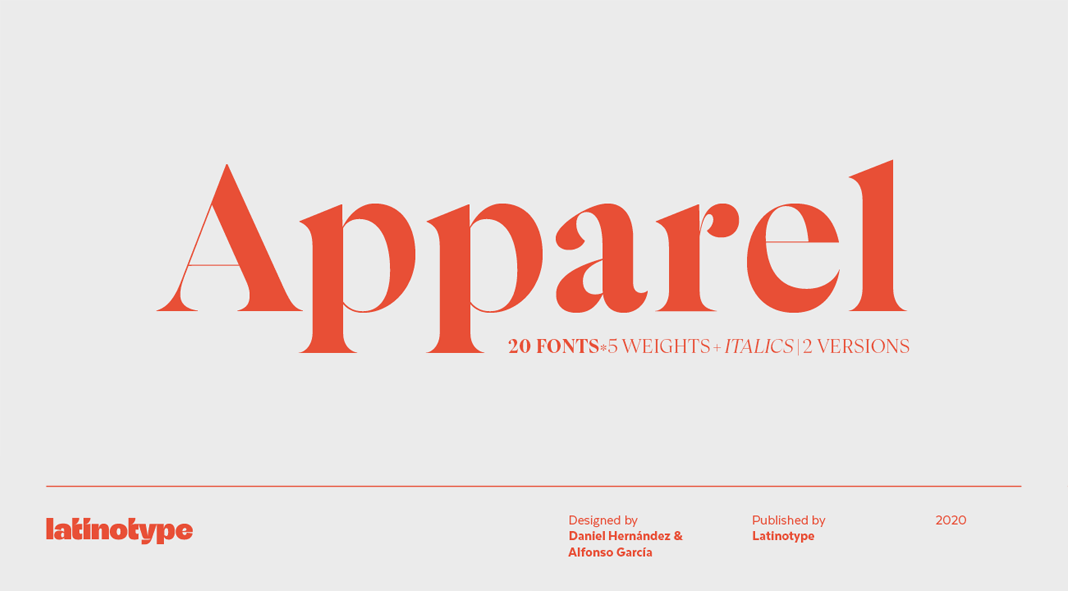
Apparel, a new font family inspired by the functional characteristics of famous serif typefaces such as Times New Roman and Caslon.
Published by foundry Latinotype at the end of October 2020, Apparel is a contemporary yet classic serif font family consisting of twenty styles. The typeface has been designed by Daniel Hernández and Alfonso García with the aim to develop a display serif font family that shares similar functional characteristics with typefaces such as Times New Roman and Caslon, while adding its own personality to convey a more contemporary touch. A medium-large x-height makes Apparel a great choice for headlines and visual identities. The family also includes a version with a stronger contrast between thick and thin strokes. This version works best in even larger font sizes.
The extensive character set of the Apparel font family supports more than Latin-based languages and includes also a basic Cyrillic set. Its OpenType features include old-style and lining figures as well as fractions and alternates, among others. Just click on one of the following links to learn more.